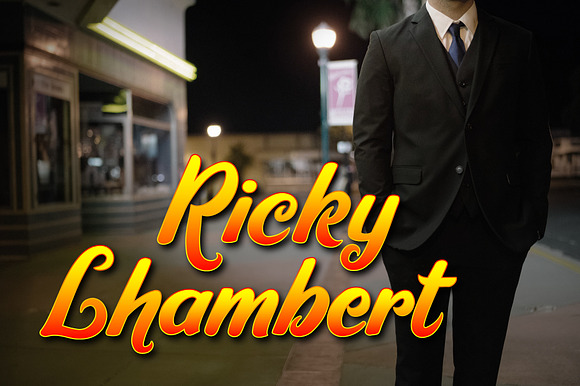
Ricky Lhambert Font
Ricky Lhambert is a curl handwriting script font. Good use for poster title, logotype, invitation, or any design you want. Include ttf and otf,
Ricky Lhambert Font by cove703 fits naturally into Branding, posters, packaging, typography.